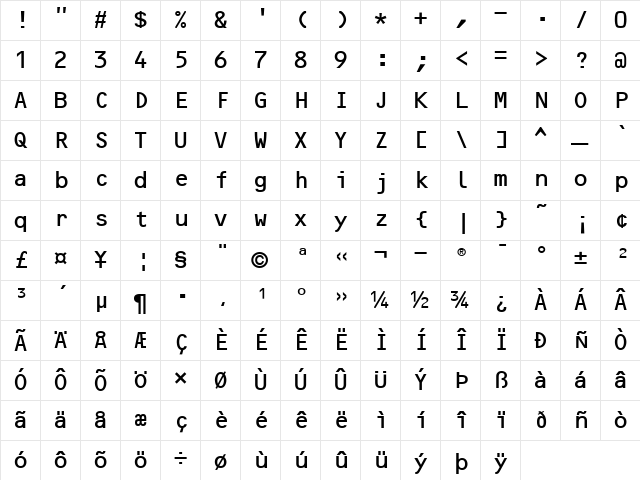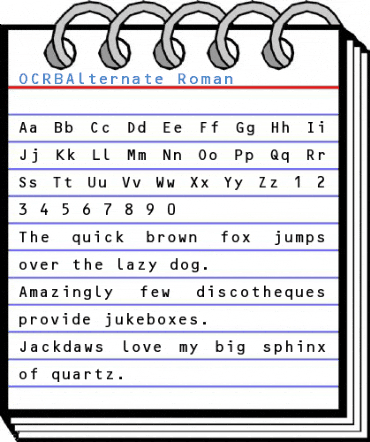
OCRBAlternate Roman
Style: Roman
Complete OCRBAlternate Roman glyph index. Displaying only characters natively supported by OCRBAlternate Roman font.
Design Context for OCRBAlternate
OCRBAlternate is a composed and adaptable typeface that performs quietly and consistently across a wide range of design contexts.